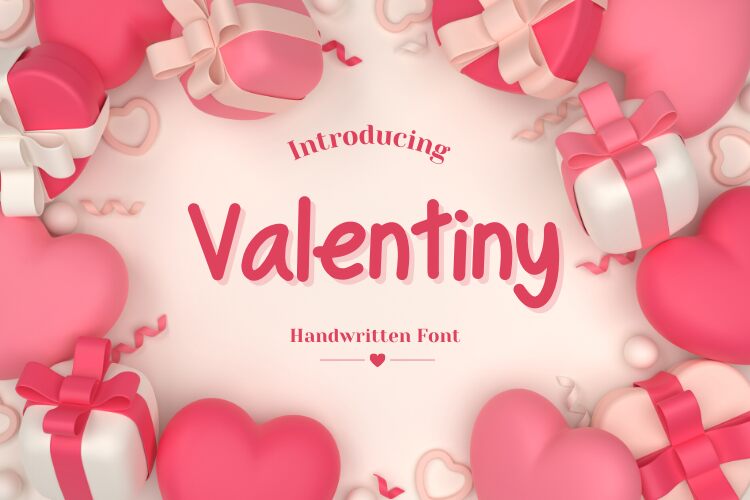
Valentiny
Valentiny font, designed by Folv, exudes a whimsical charm that captures the warmth of handwritten expression. Its lively strokes and playful curves evoke a sense of personality, making it an inviting choice for projects seeking to convey friendliness and creativity. The fluidity in its lettering creates an organic feel, where each character dances with individuality.
Ideal for greeting cards, invitations, or any design needing a personal touch, Valentiny brings life to words with its captivating aesthetic. Whether employed in branding endeavors or casual displays, this font’s unique flair enhances communication by infusing it with joy and approachability—a perfect companion for projects that celebrate connection and affection.